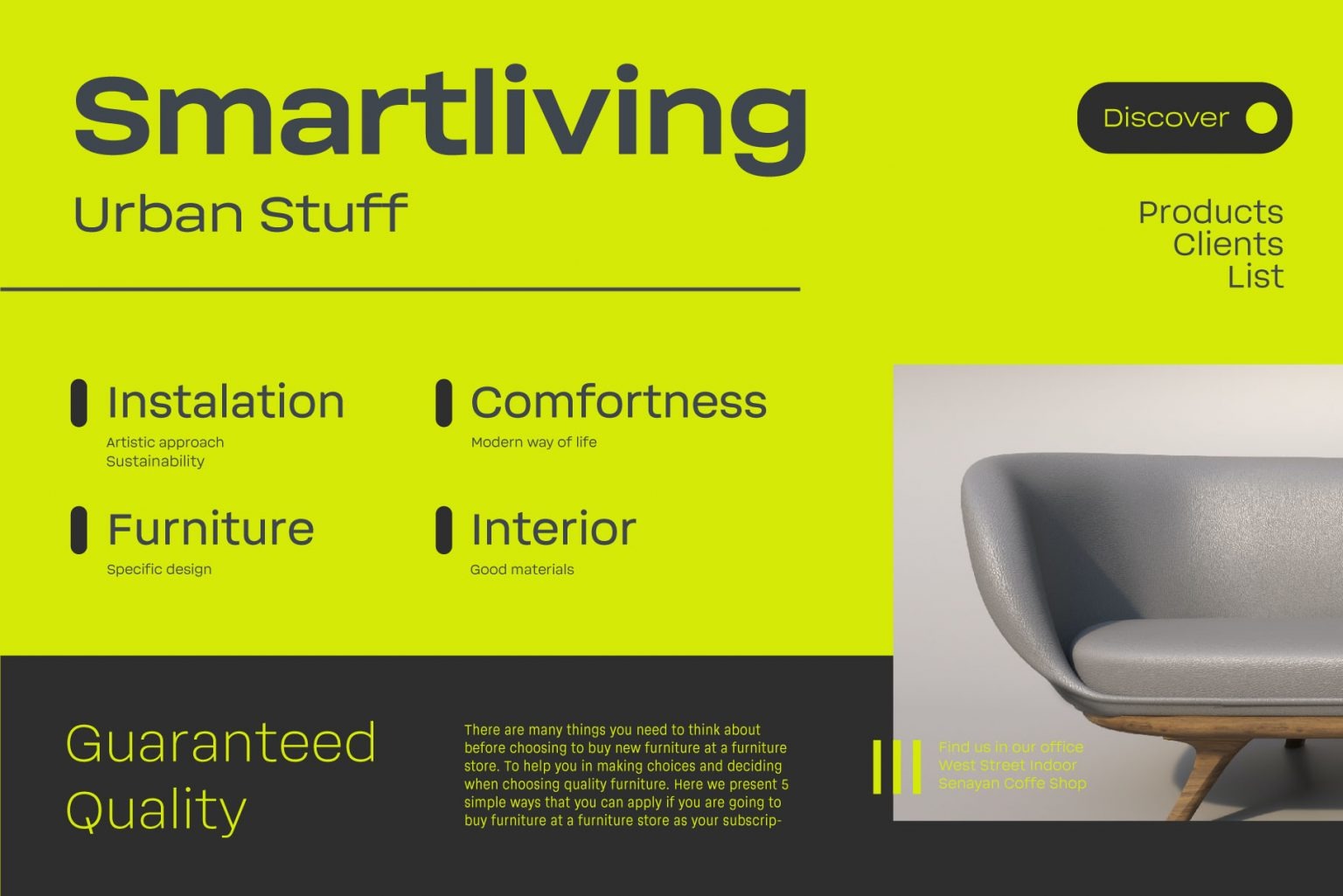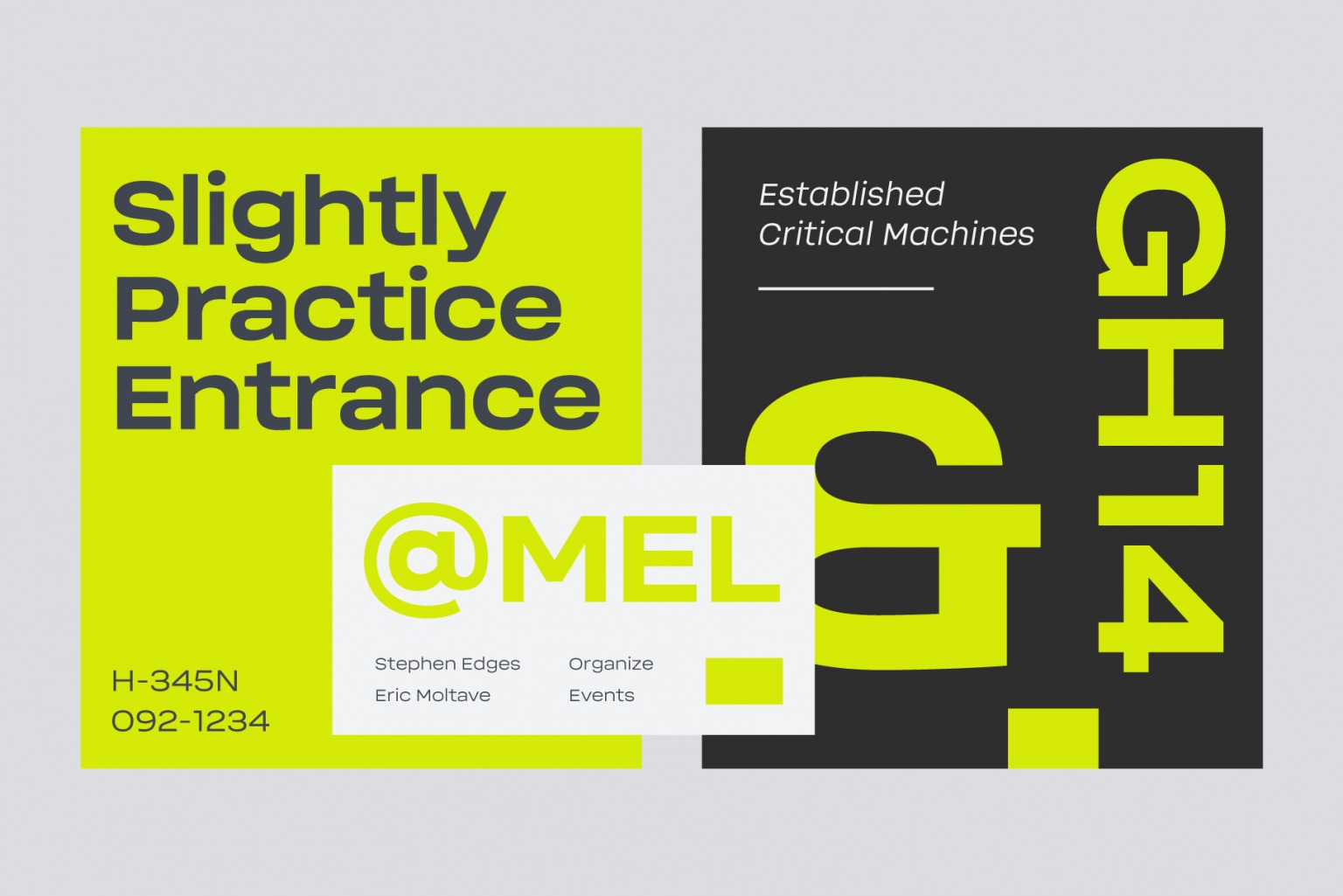
Soliden Font
Soliden Sans Serif Font is a geometric, clean and versatile font family with a solid and futuristic personality. Designed and published by Eko Bimantara in 2022, Soliden became a suitable choice for large display and functional purposes. The letterforms are built in large x-height with spacious counters. It consists of 8 weight from Thin to Black and 3 width; Condensed, Normal and Expanded, which make it a large font family with 48 styles. Soliden has 394 glyphs which cover broad latin languages.